Rugged brands require strong, dependable typography. Whether you are designing for a denim apparel line, an outdoor equipment company, or a craft steakhouse, slab serif letterforms express durability and heritage. Using western slab serif fonts allows you to build an authentic frontier aesthetic that customers trust.
Here is how to use western typography effectively for physical merchandise and rugged branding.
1. Thick Blocky Serifs Express Heritage and Strength
Slab serifs feature thick, square-shaped serifs attached to every letter stem. For instance, heavy slab typefaces like Binose carry immense visual weight on printed surfaces. Therefore, your brand name feels grounded, solid, and built to last.
2. Ideal Applications for Denim, Leather, and Craft Spirits
Western typography fits naturally into vintage product categories:
- Denim & Workwear: Perfect for back-pocket leather patches, rivets, and woven garment tags.
- Craft Distilleries: Gives bourbon, whiskey, and rum bottles a rustic saloon feel.
- Outdoor Gear: Looks incredible on canvas bags, camping equipment, and outdoor hoodies.
3. Enhance Rustic Vibes with Earthy Color Palettes
To complete the authentic western aesthetic, pair your slab serif headlines with subtle leather or woodblock textures. Additionally, using warm earth tones like burnt orange, dark brown, and beige creates a warm, rustic mood that stands out.
Recommended Fonts from Artisan Font
- Binose: A bold cowboy slab serif font designed with sturdy, squared serifs.
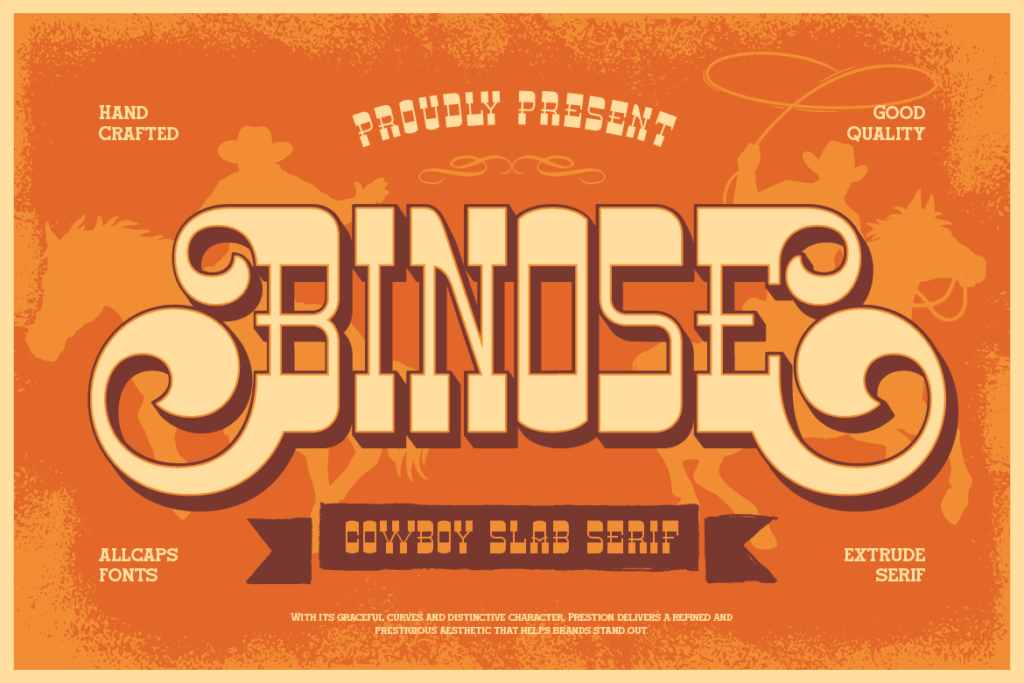
- Truewild: A rugged western font crafted for adventurous apparel and outdoor branding.